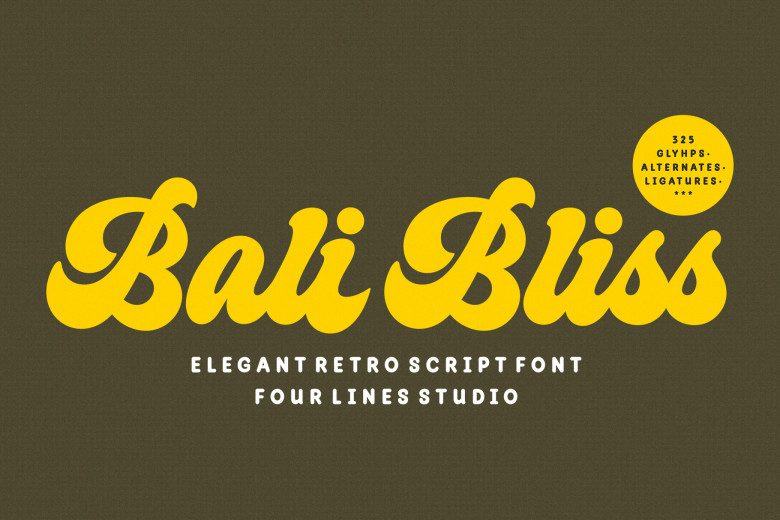
Bali Bliss Font
“Bali Bliss” font lets you experience vintage glamour and timeless elegance! This vintage script typeface easily channels retro charm, transporting you back in time while making your designs timeless yet relevant at the same time. It draws upon collective memories for added depth of meaning when designing with “Bali Bliss”.
Bali Bliss Retro Script Font